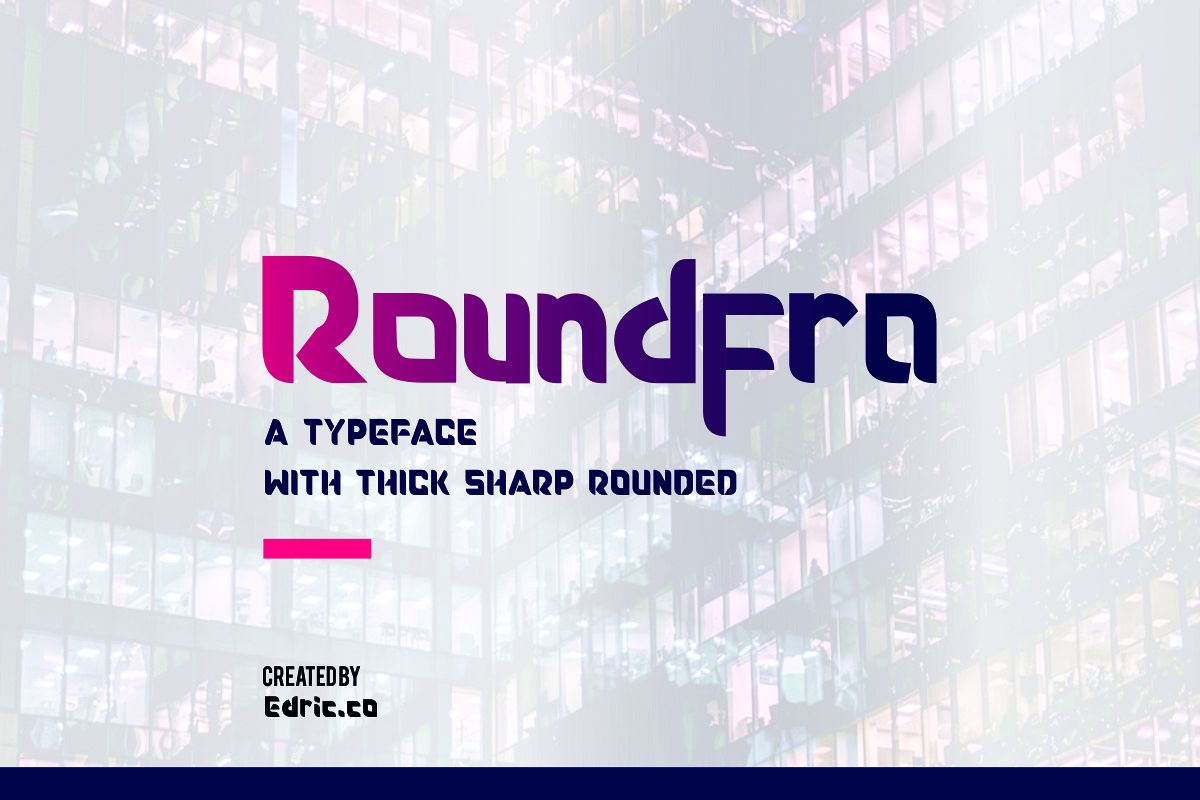
Roundfra
Hi Everybody! Introducing our newest font : Roundfra ! First made on 2017, now the font updated and modernized.This is a new modern sport futuristic font. It has a fresh, elegant and stylish glyph .This font will Work on PC & Mac with Simple installations. Accessible in the Adobe Illustrator, Adobe Photoshop, Adobe InDesign, even work on Microsoft Word. It’s also PUA Encoded Characters – Fully accessible without additional design software.Purchase with confidence! =)